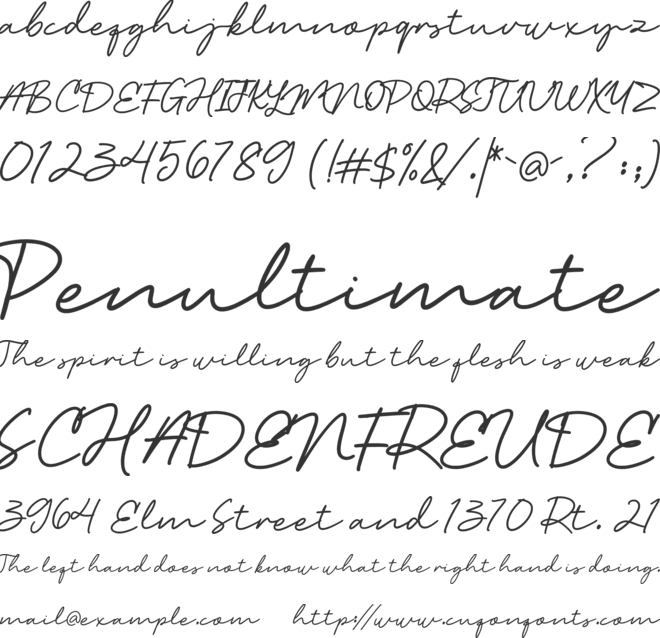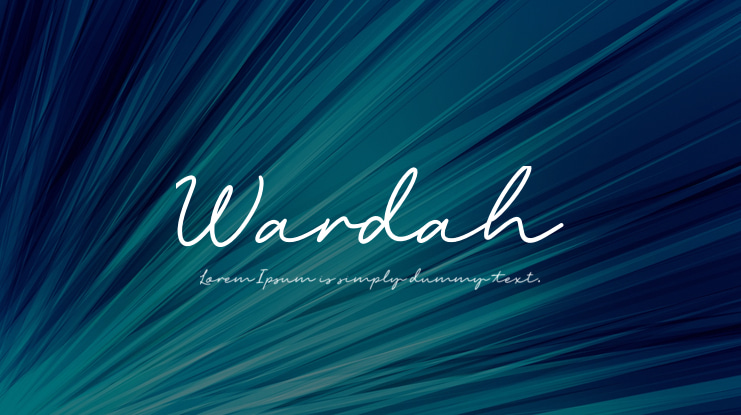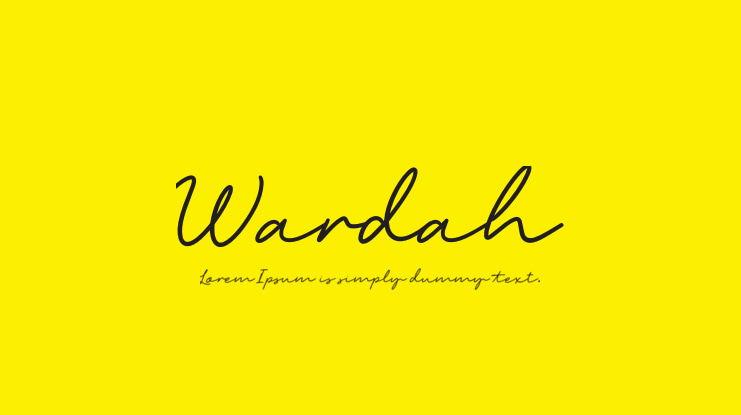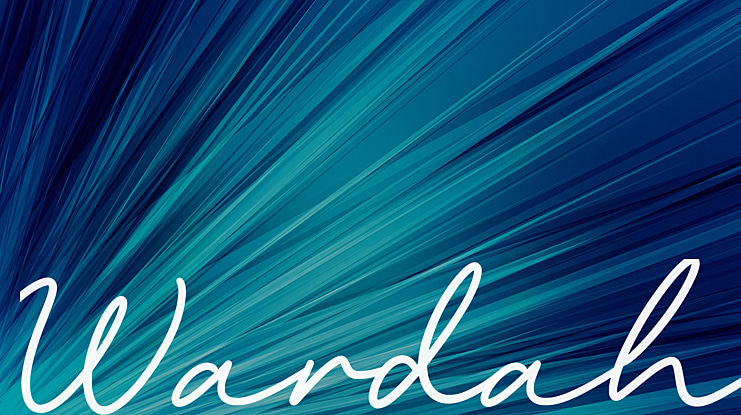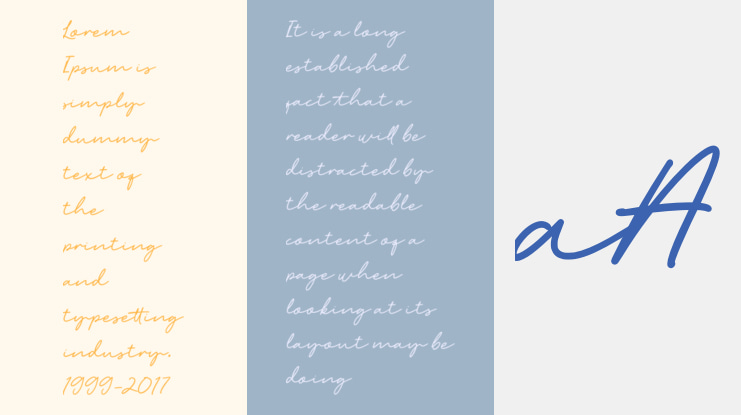
Wardah! A handwrittent signature font. Comes with two styles, regular and rounded. Wardah font is suitable for branding, logotype, apparel, T-shirt, Hoodie, product packaging, quotes, flyer, poster, book cover, advertising, etc.
1. Uppercase and lowercase characters
2. Multilingual support.
3. Features: ligatures, alternate